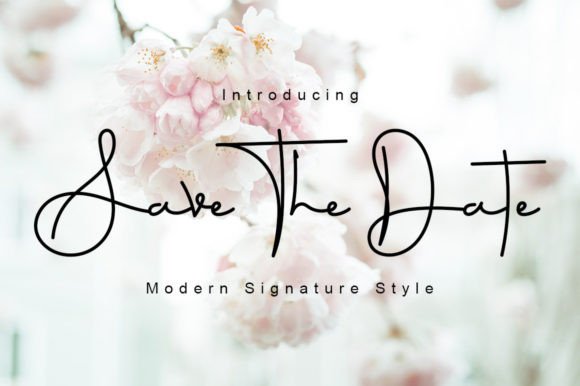
Feast your eyes upon Save the Date, a remarkable script font that exudes elegance and sophistication. Created by the talented patahilah studio, this font is an exquisite blend of timeless appeal and contemporary flair, making it an ideal choice for a multitude of design projects.
With its meticulously crafted curves and intricate details, Save the Date possesses a captivating presence that elevates any text to an art form. Its sweeping strokes and graceful flourishes lend a touch of romance and charm to wedding invitations, greeting cards, branding materials, and social media posts, ensuring that your words leave a lasting impression.
But Save the Date's allure extends beyond its aesthetic appeal. Its versatility knows no bounds, as it effortlessly adapts to a wide spectrum of design styles and themes. Whether you seek a classic and traditional look or a more modern and edgy aesthetic, Save the Date seamlessly blends in, enhancing your designs with its understated elegance.
With Save the Date as your font of choice, you have the power to transform ordinary words into extraordinary expressions of creativity. Unleash your imagination and craft designs that speak to the heart, designs that evoke emotions and leave an indelible mark on your audience.
Experience the magic of Save the Date today and witness how it transforms your design aspirations into captivating realities. Its intricate details and flowing lines will add a touch of finesse and allure to your projects, making them stand out from the mundane and capturing the attention of even the most discerning eye.